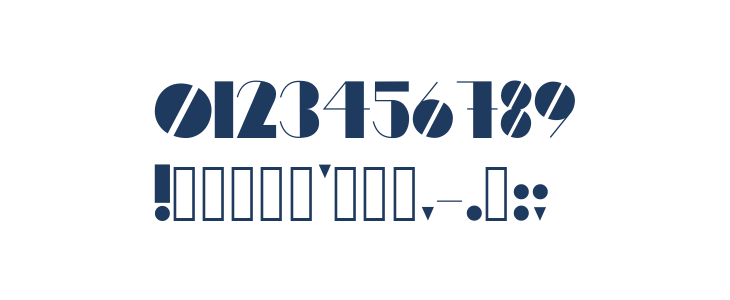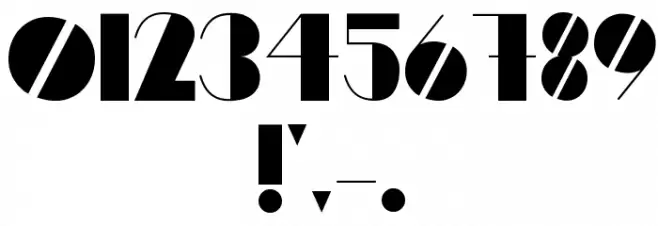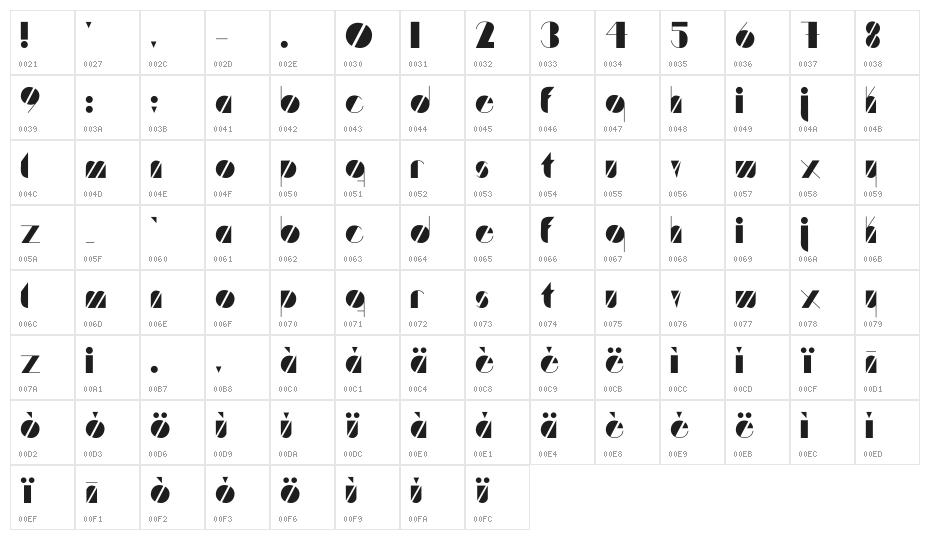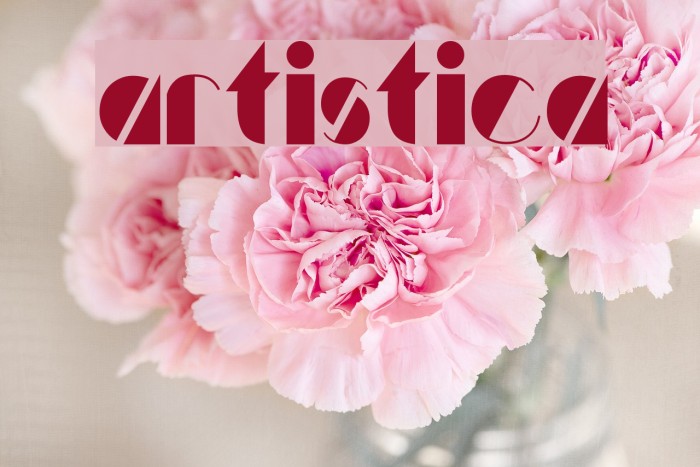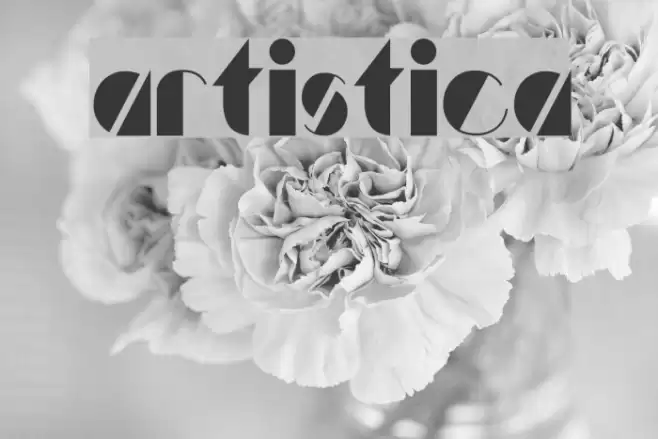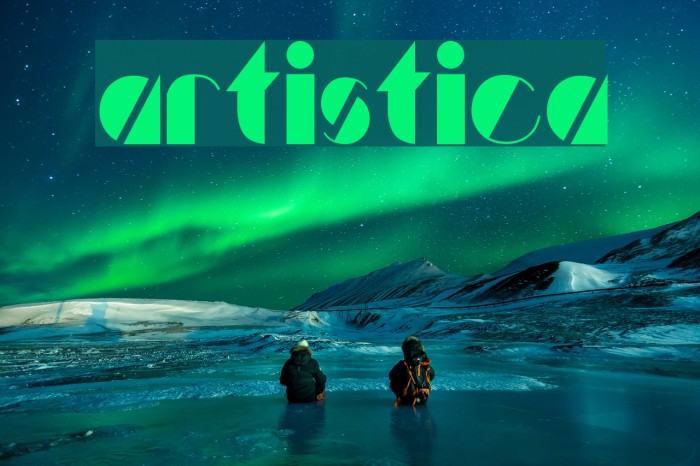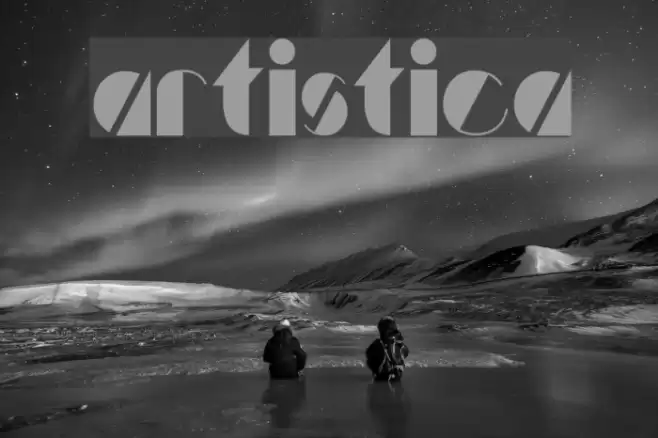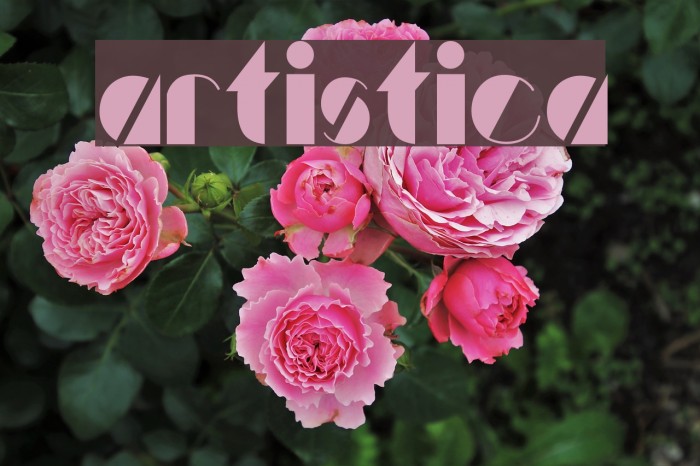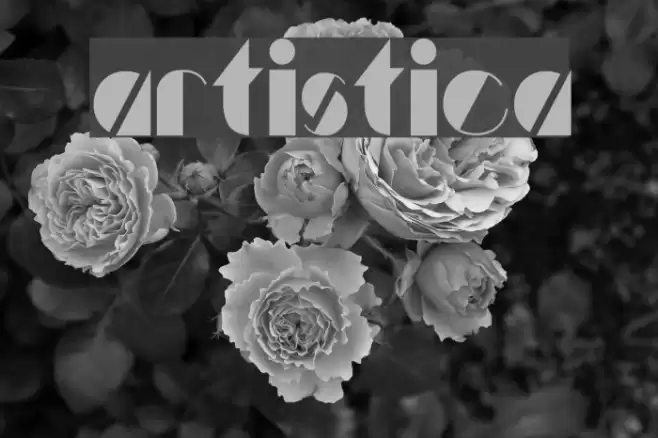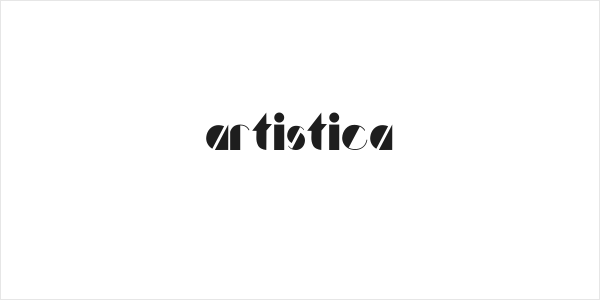
Artistica Font
Artistica Description
This font features a highly stylized and geometric design, characterized by its bold and artistic flair. The letters are composed of sharp angles and clean lines, creating a modern and futuristic appearance. The uppercase and lowercase letters maintain a consistent style, with unique shapes that stand out. The numbers follow the same geometric pattern, ensuring uniformity across the character set. Special characters are also designed with the same attention to detail, making this font suitable for creative and eye-catching designs.
| Proposed Projects | Ideal for branding, posters, album covers, and any project requiring a striking and modern aesthetic. |